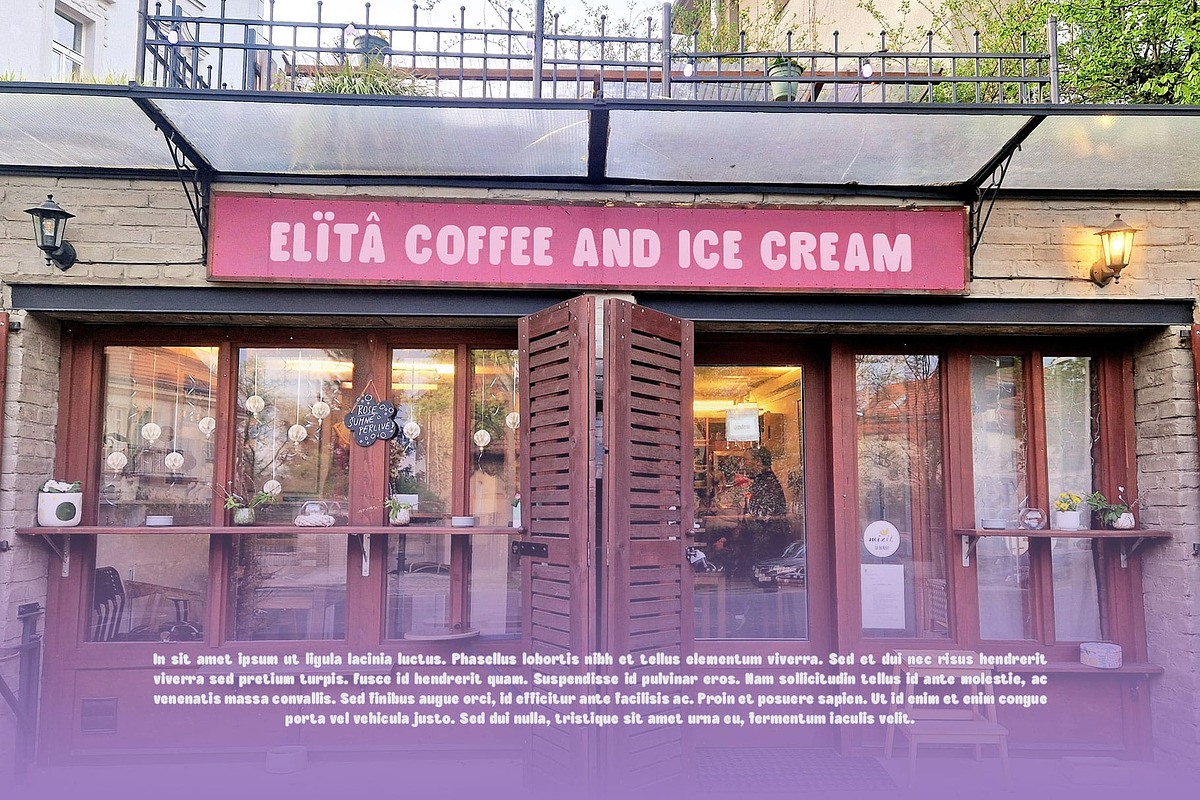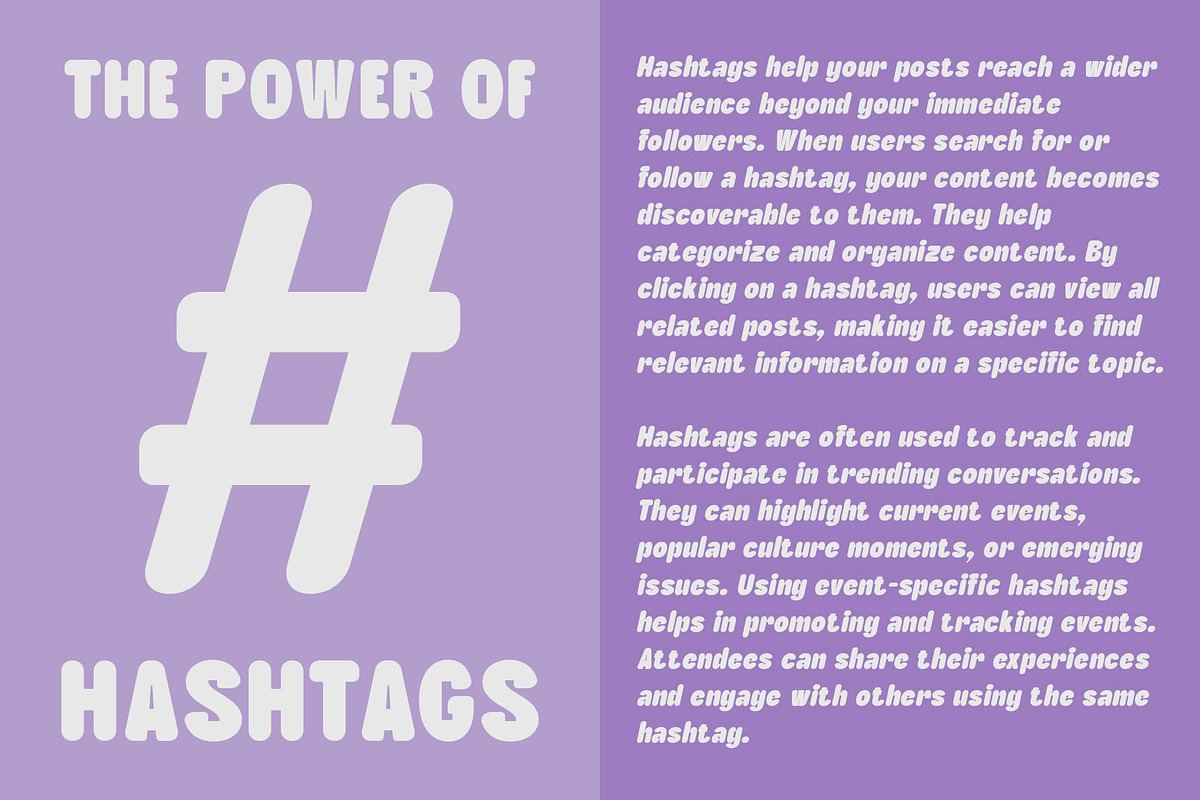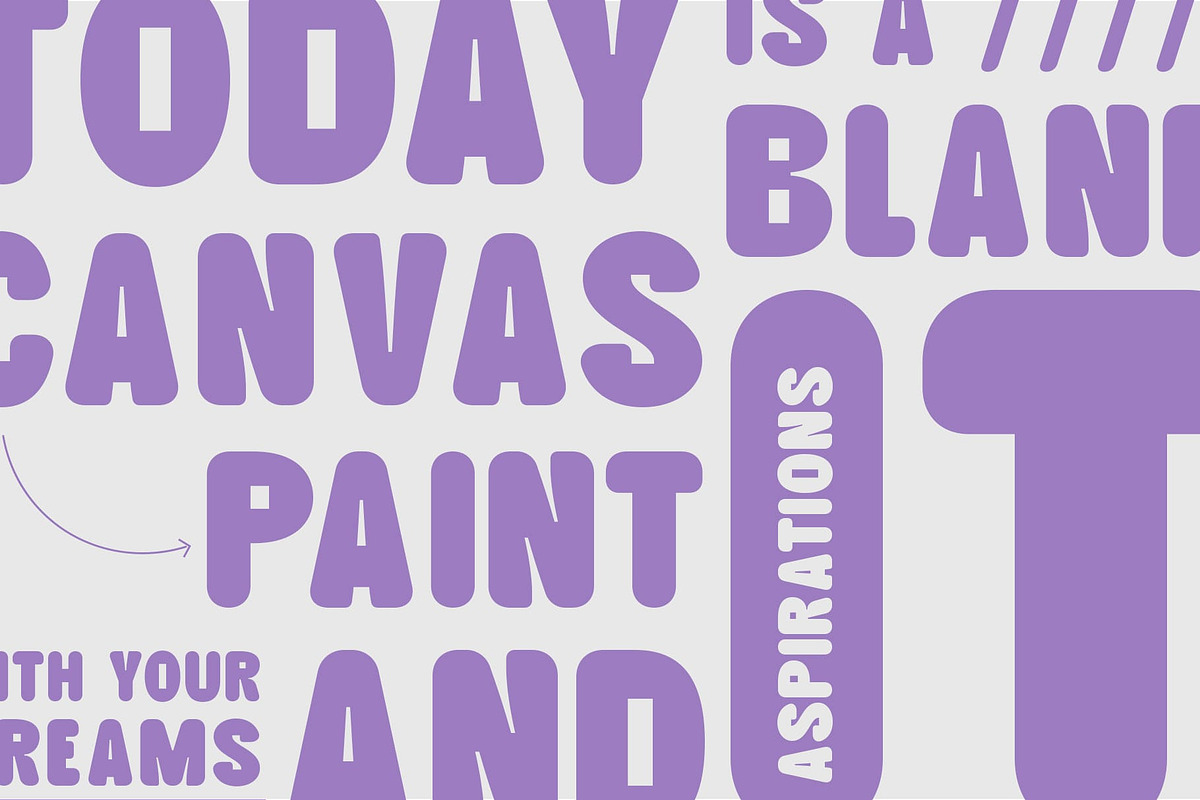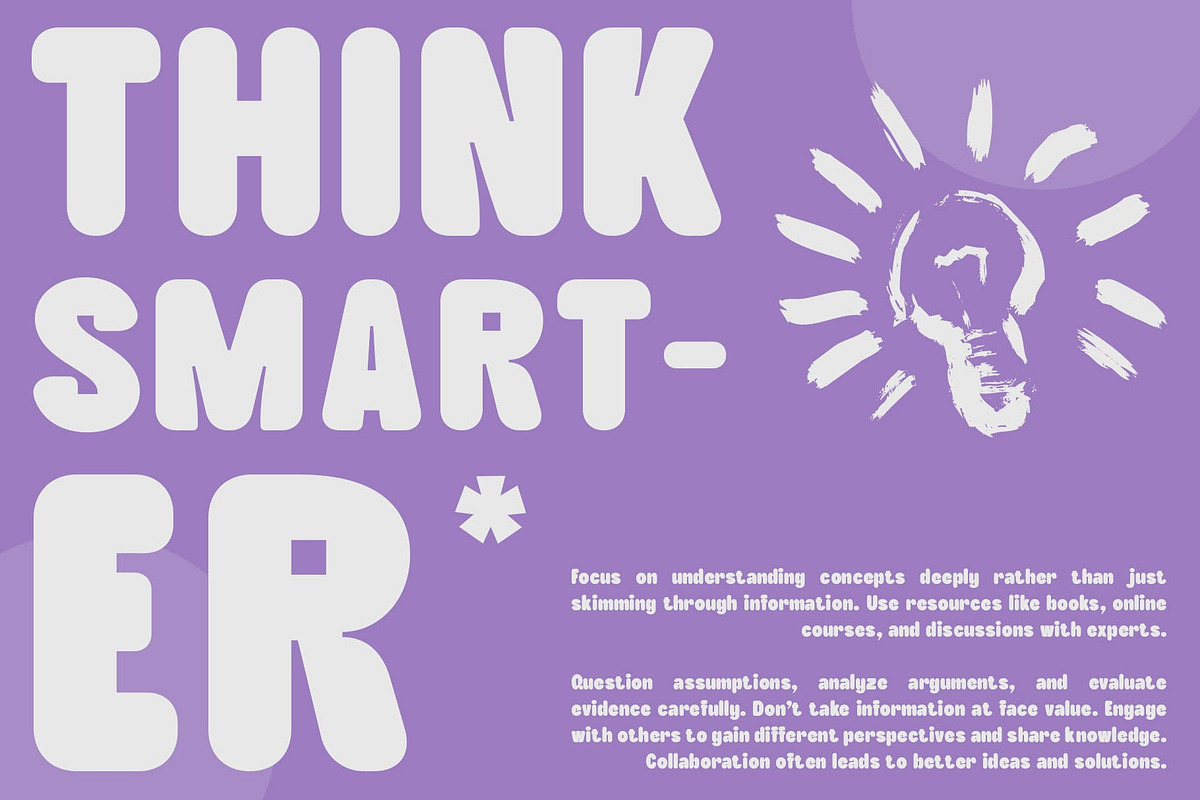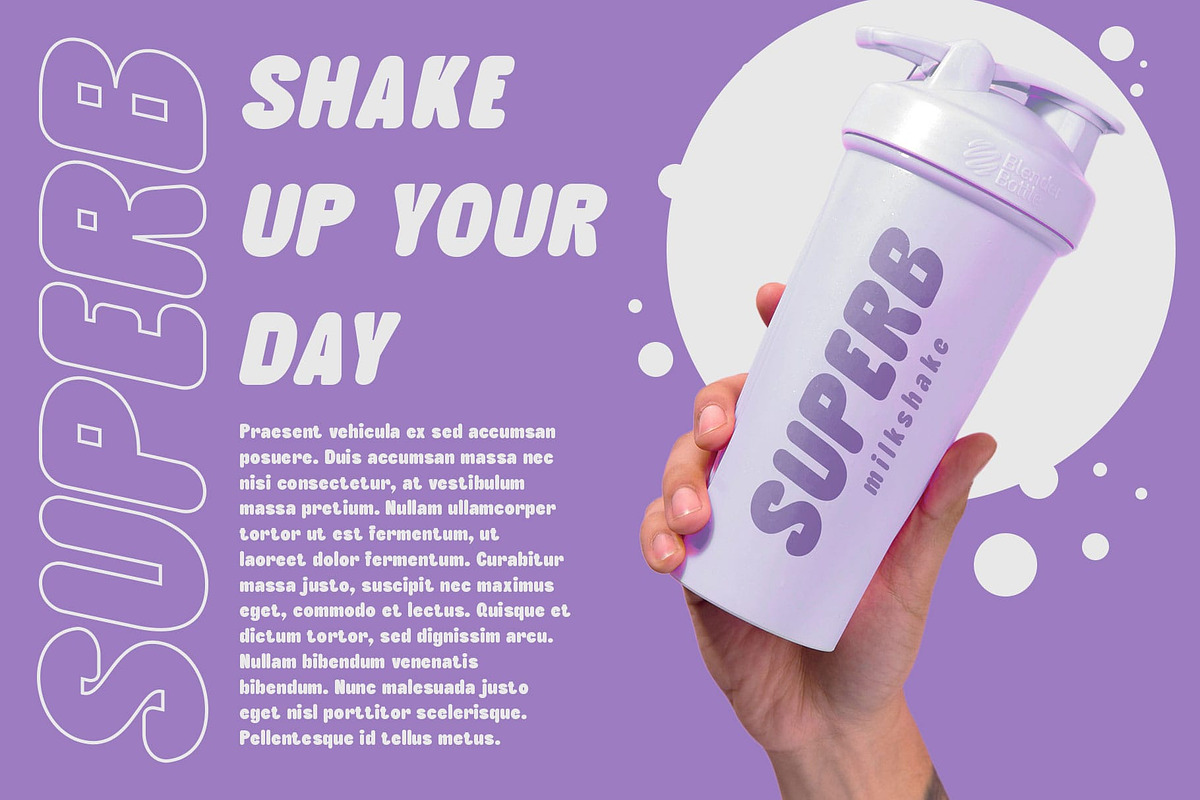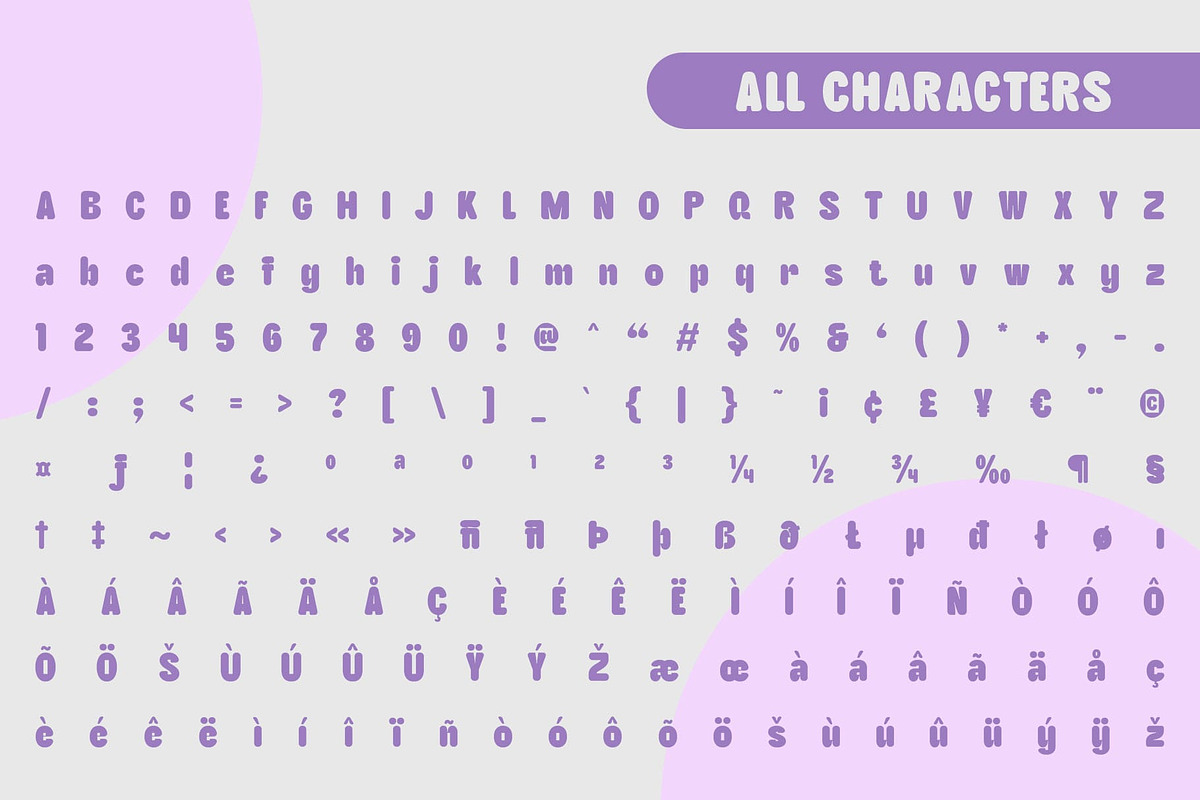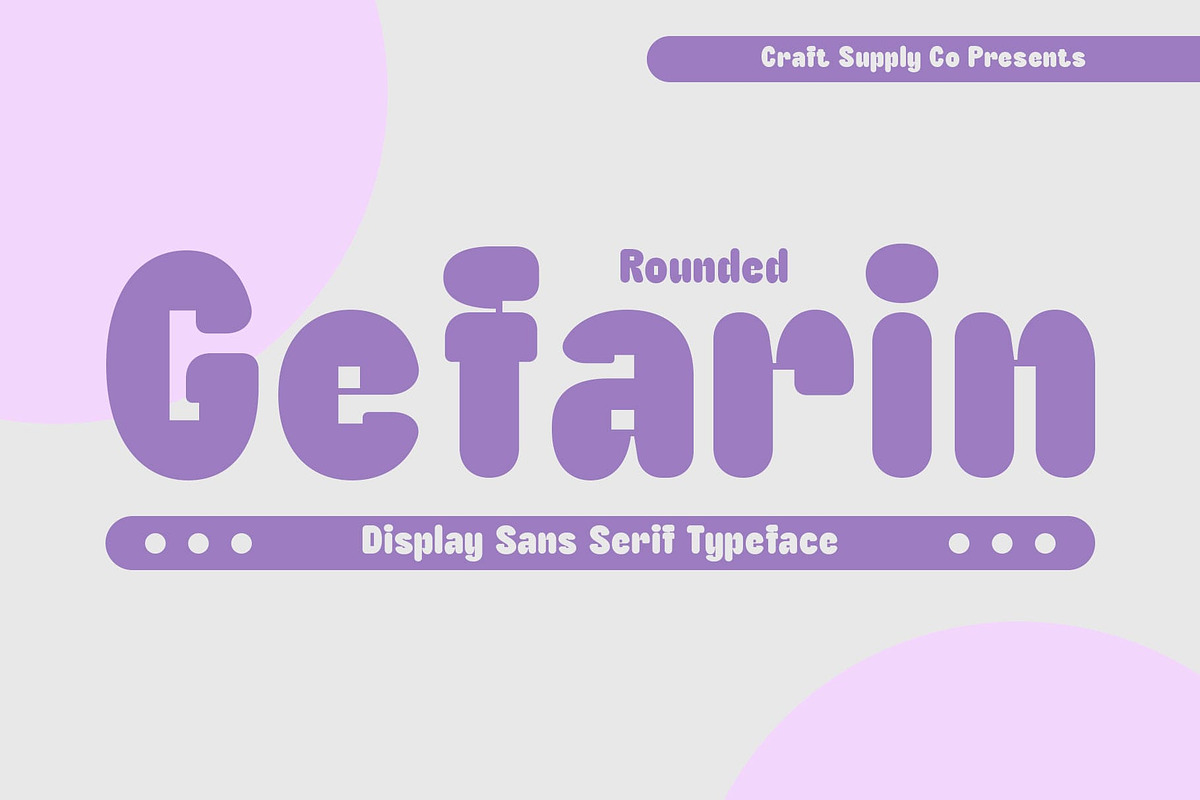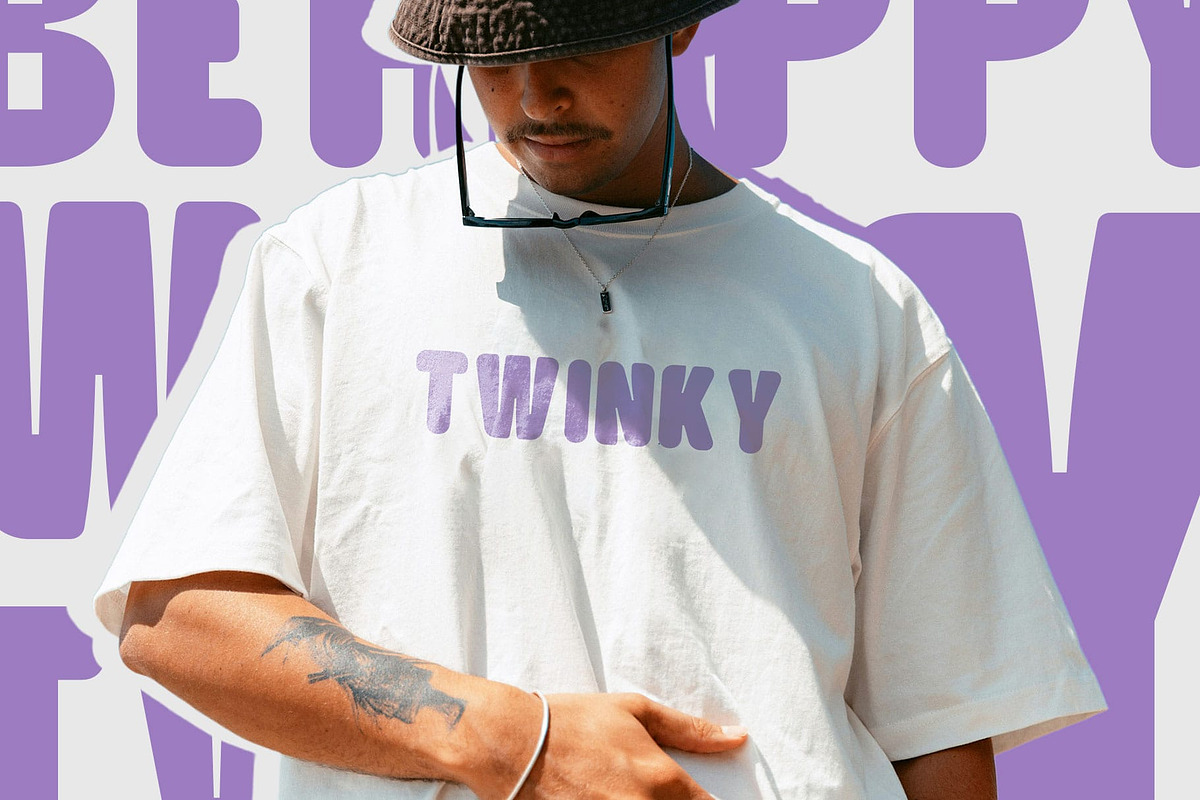
Gefarin Rounded
Gefarin Rounded Font: Bold, Playful Sans-Serif Font
Thick Letterforms with Playful Edges Gefarin Rounded is a bold sans-serif font that pairs thick, sturdy letterforms with playful, rounded edges. This unique combination creates a font that is not only eye-catching but also full of personality. Its vibrant and energetic design ensures that it stands out in any context, making it perfect for graphics and branding that demand attention.
Perfect for Eye-Catching Graphics and Creative Branding With its lively and engaging style, Gefarin Rounded is ideal for a variety of creative applications. Whether you’re designing posters, creating brand identities, or working on promotional materials, this font adds a touch of fun and excitement. Its distinctive shape and bold presence make it a great choice for projects that aim to captivate and engage an audience.
Versatile for Vibrant and Energetic Projects Ideal for any design that requires a burst of creativity and flair, Gefarin Rounded is a versatile font that brings a lively and memorable edge. Its bold thickness and rounded shapes make it suitable for a wide range of applications, from dynamic advertising to vibrant event promotions.